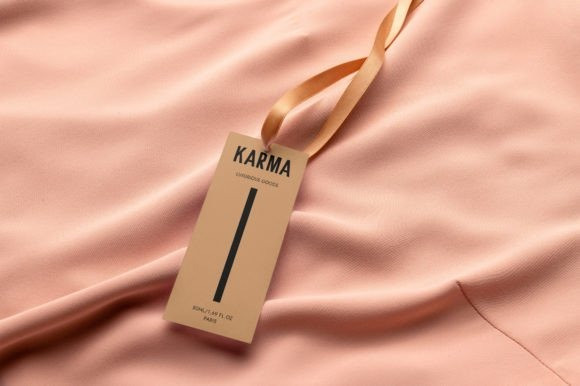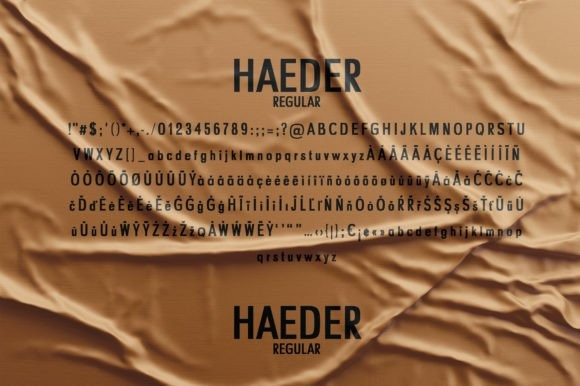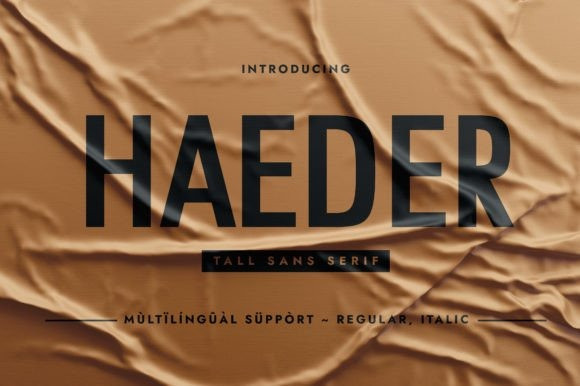
Haeder Font
Haeder Font is a tall, condensed sans serif typeface. Its glyphs height renders it a good choice when you are working on creative ideas that require a font that functions as a display sans serif with tall glyphs construction.